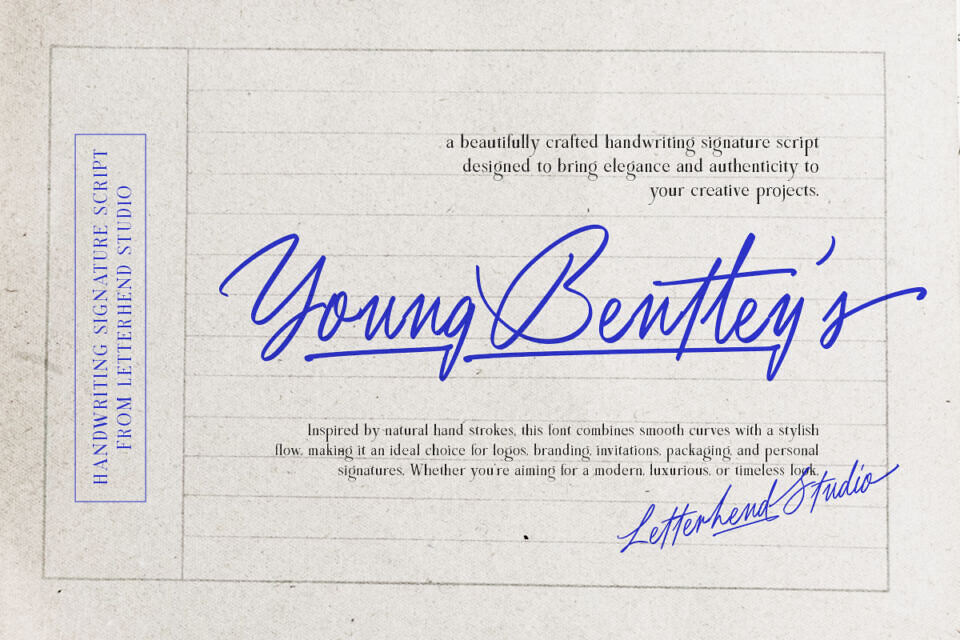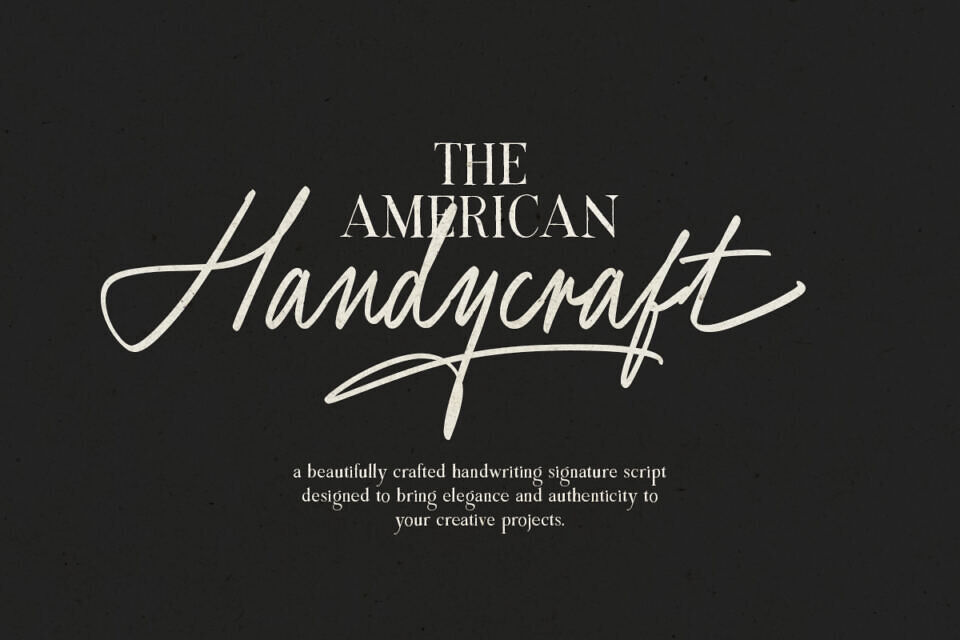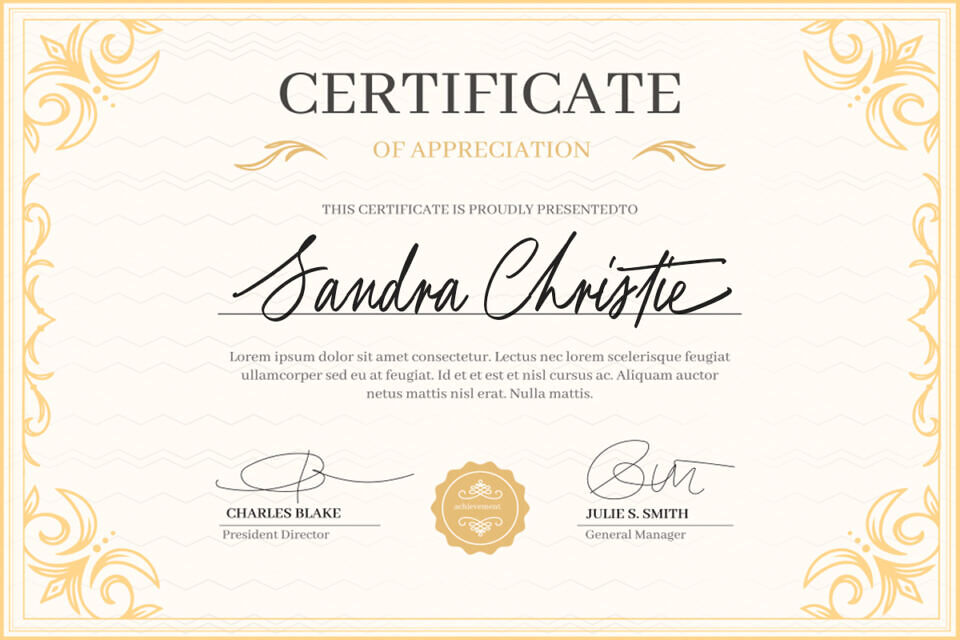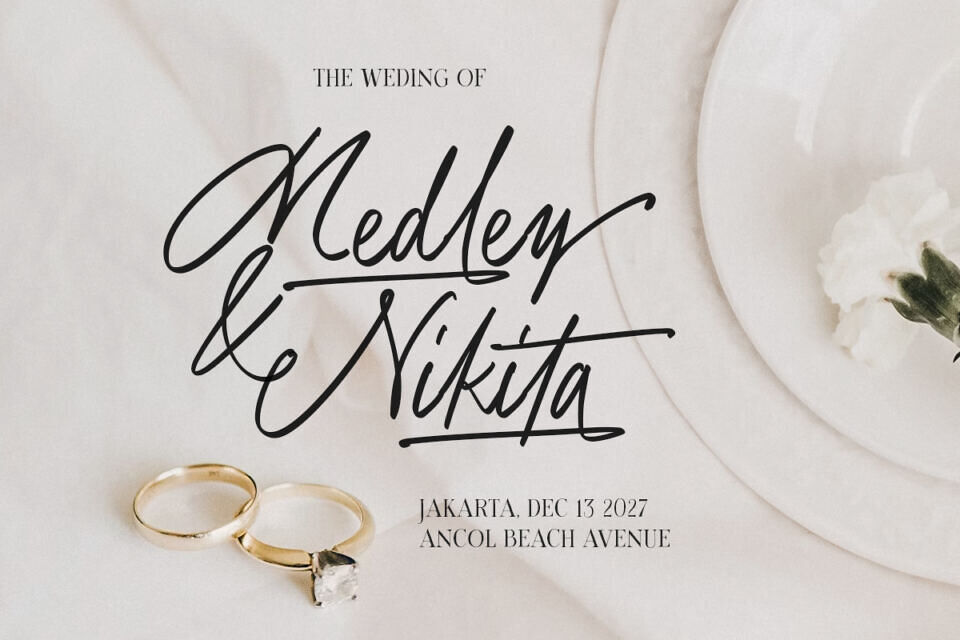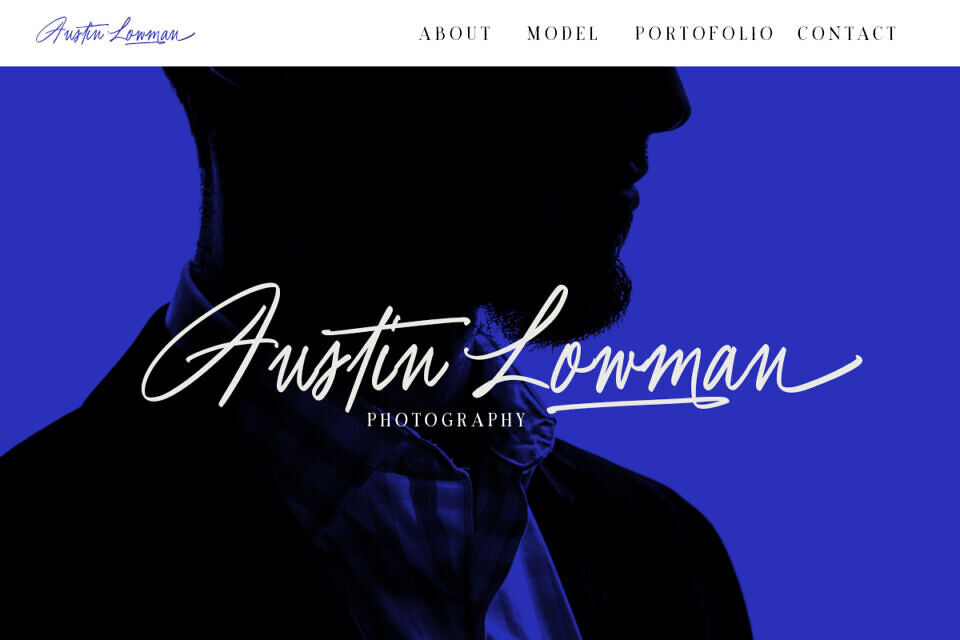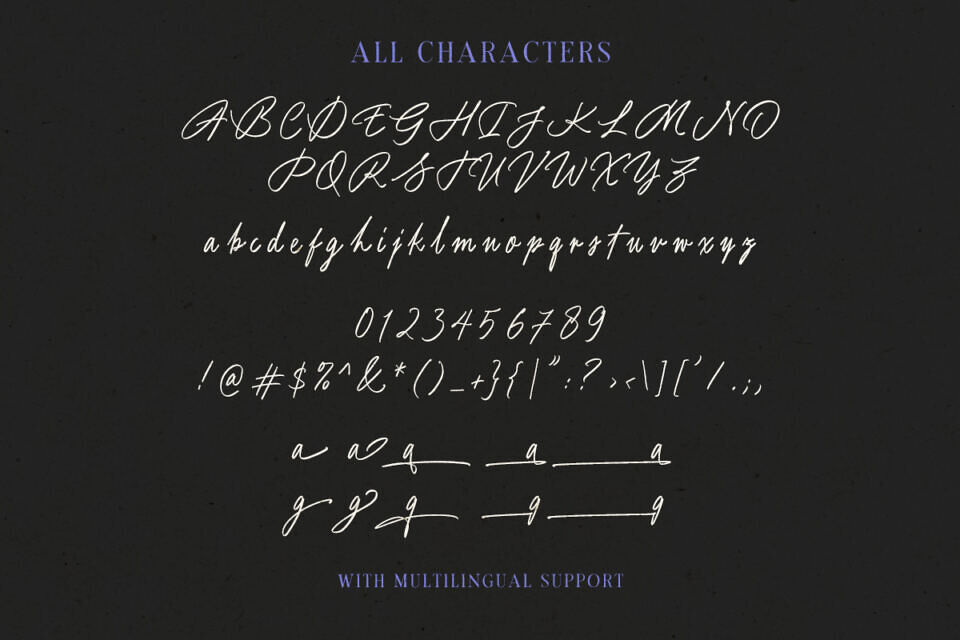
Young Bentley is a stylish handwritten signature font with smooth, natural curves and an effortless flow. It captures the look of genuine pen strokes, bringing elegance and modern charm to your designs.
Perfect for logos, branding, invitations, packaging, and anything that needs a refined handwritten touch, this font adds a sense of class and authenticity without trying too hard.